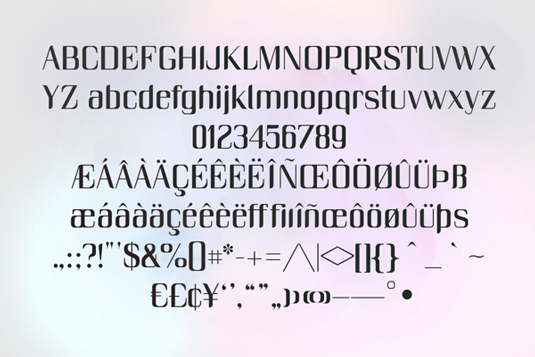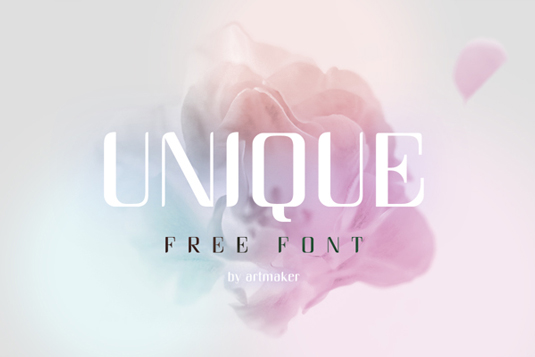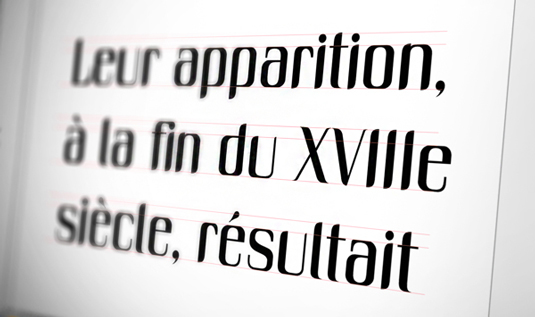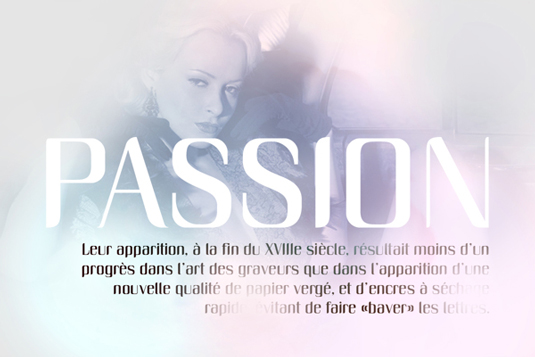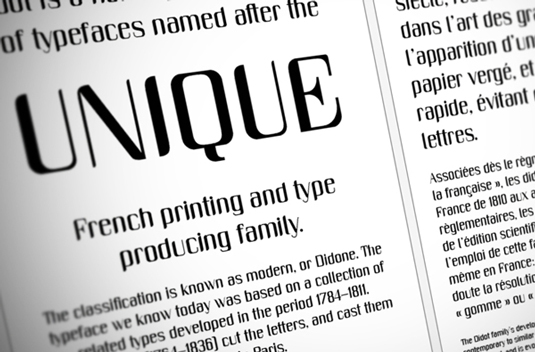
Font of the day: Unique
Unique by Artmaker
Today's font of choice is Unique by Anna Pocius aka Artmaker. She describes her design on Behance as 'a display hybrid typeface, which is a little bit flashy, retro but still contemporary font designed specially for headings and logotypes'.